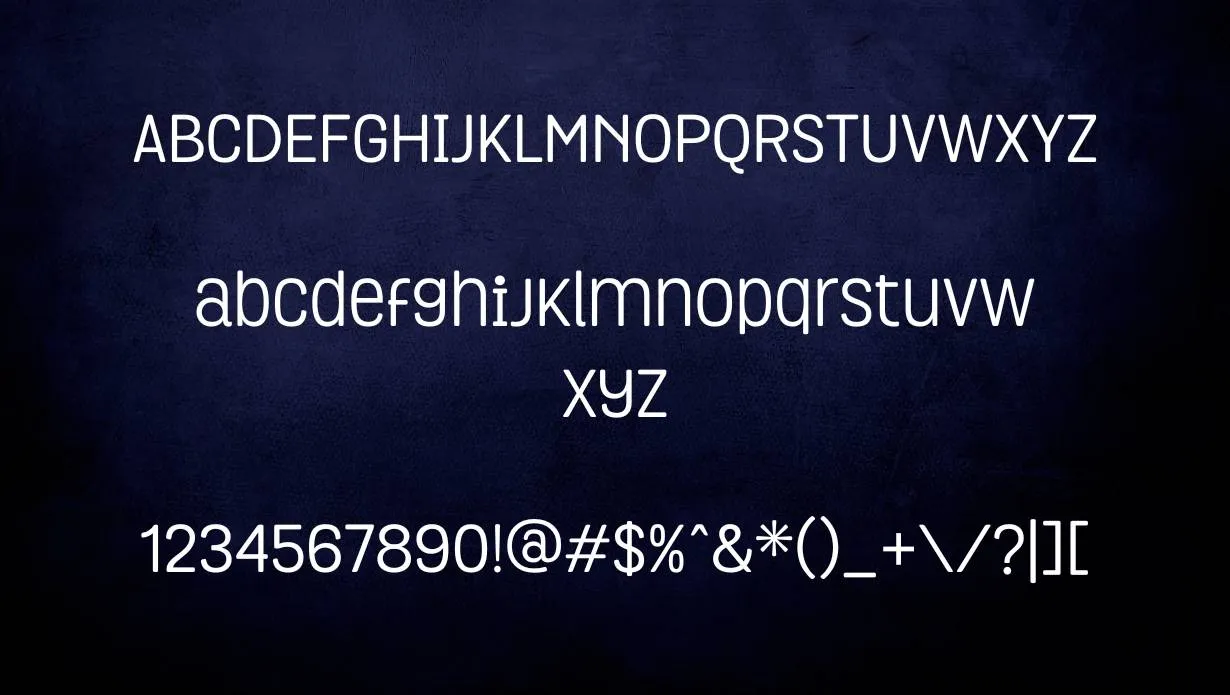
Grota Rounded Font is known for its clean and rounded design, making it an ideal choice for logos, packaging, and web designs. Commonly available in file formats such as OTF, TTF, and WOFF, it ensures seamless integration and compatibility across different design software and web platforms.
| Name | Grota Rounded Font |
| Designer | Daniel Hernández |
Its rounded edges and modern appearance lend a friendly and approachable feel to the text, making it both inviting and easily readable.